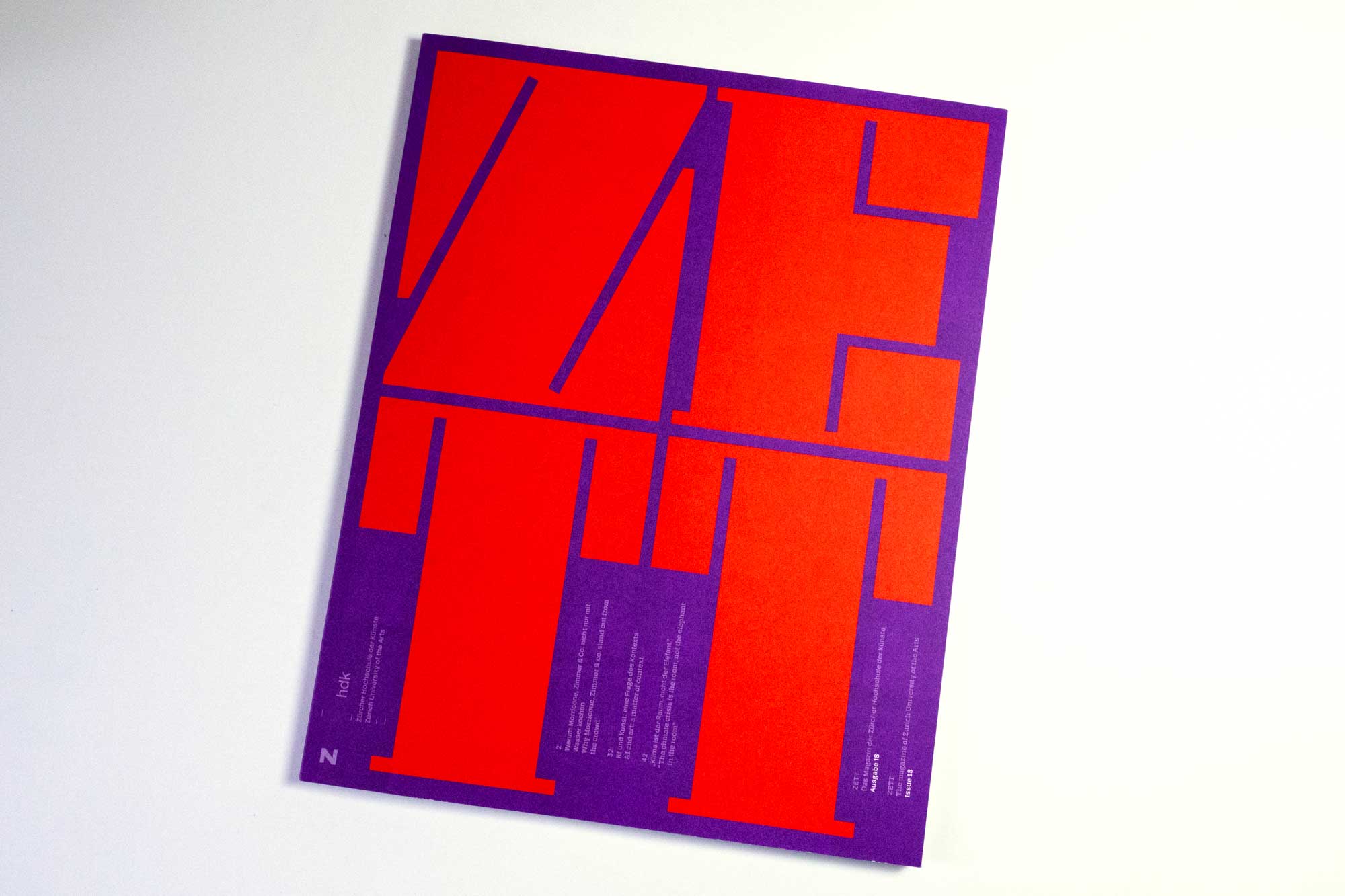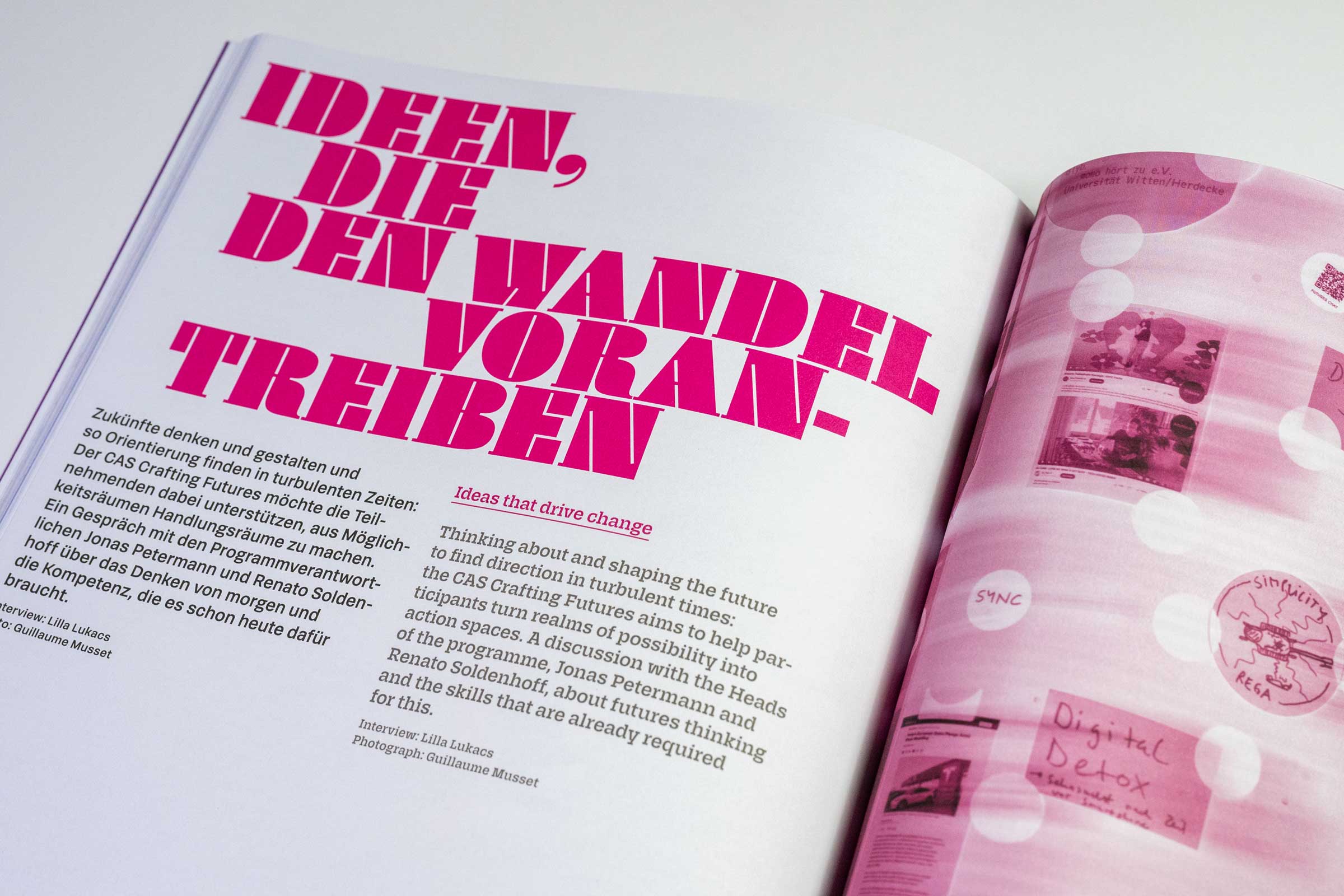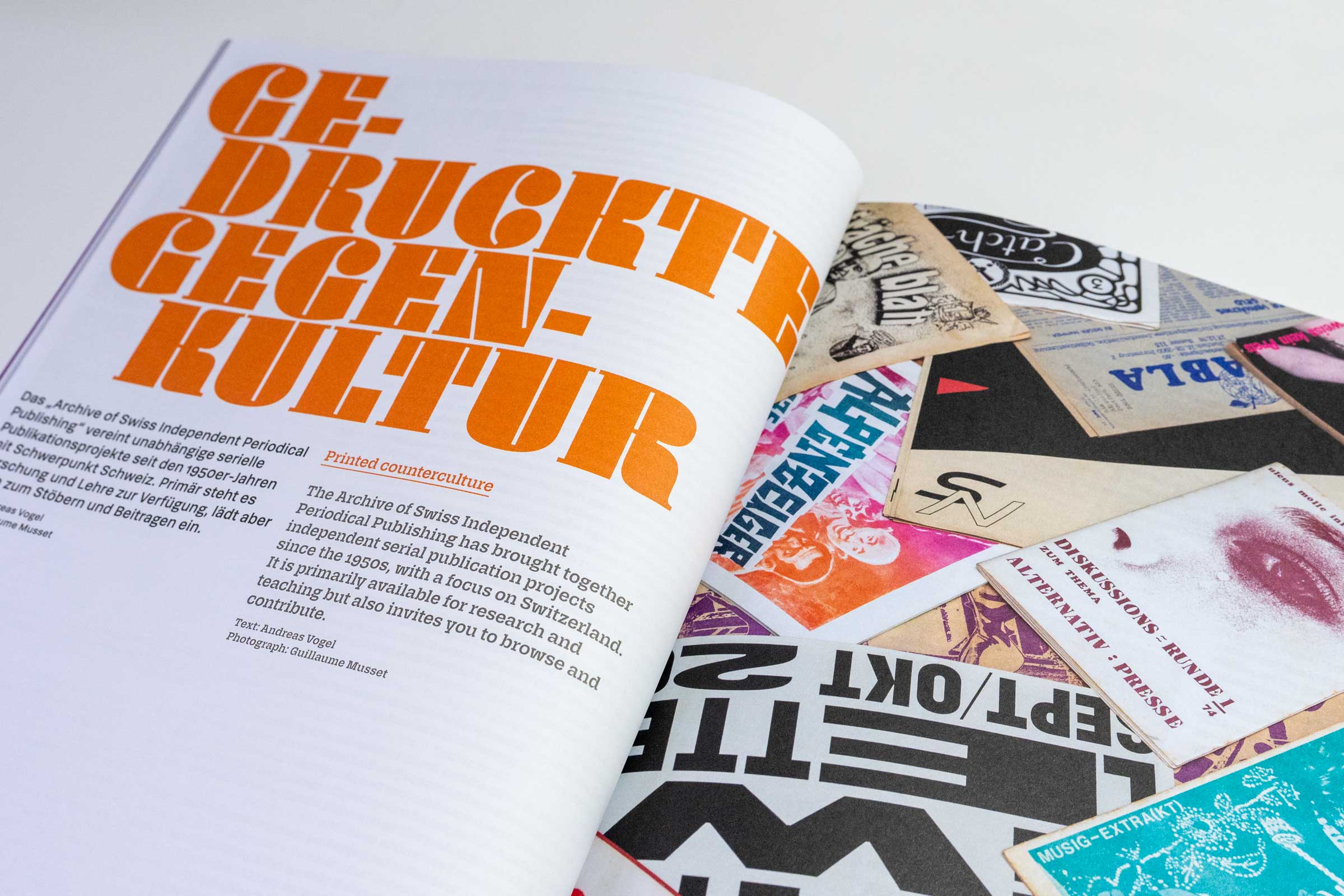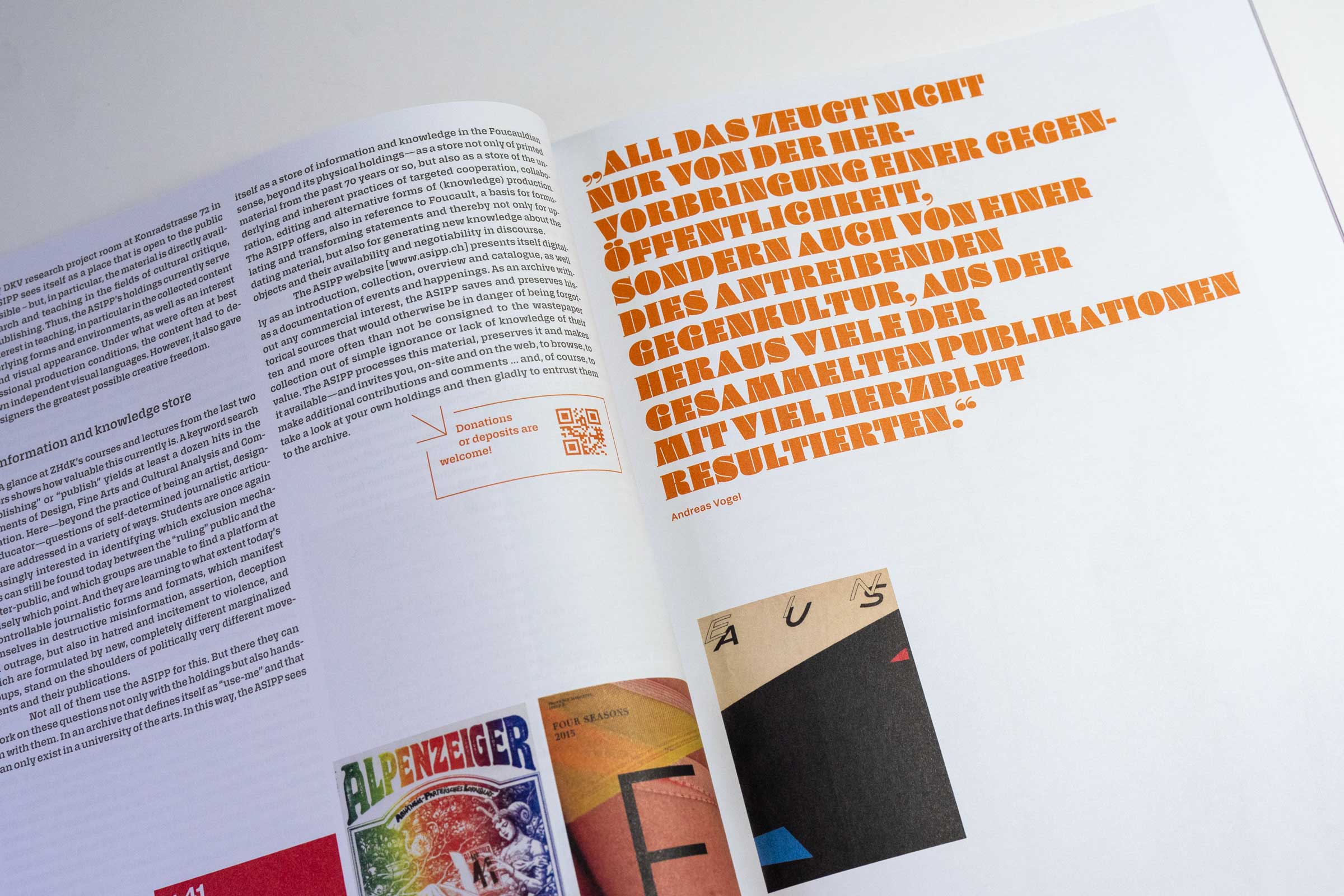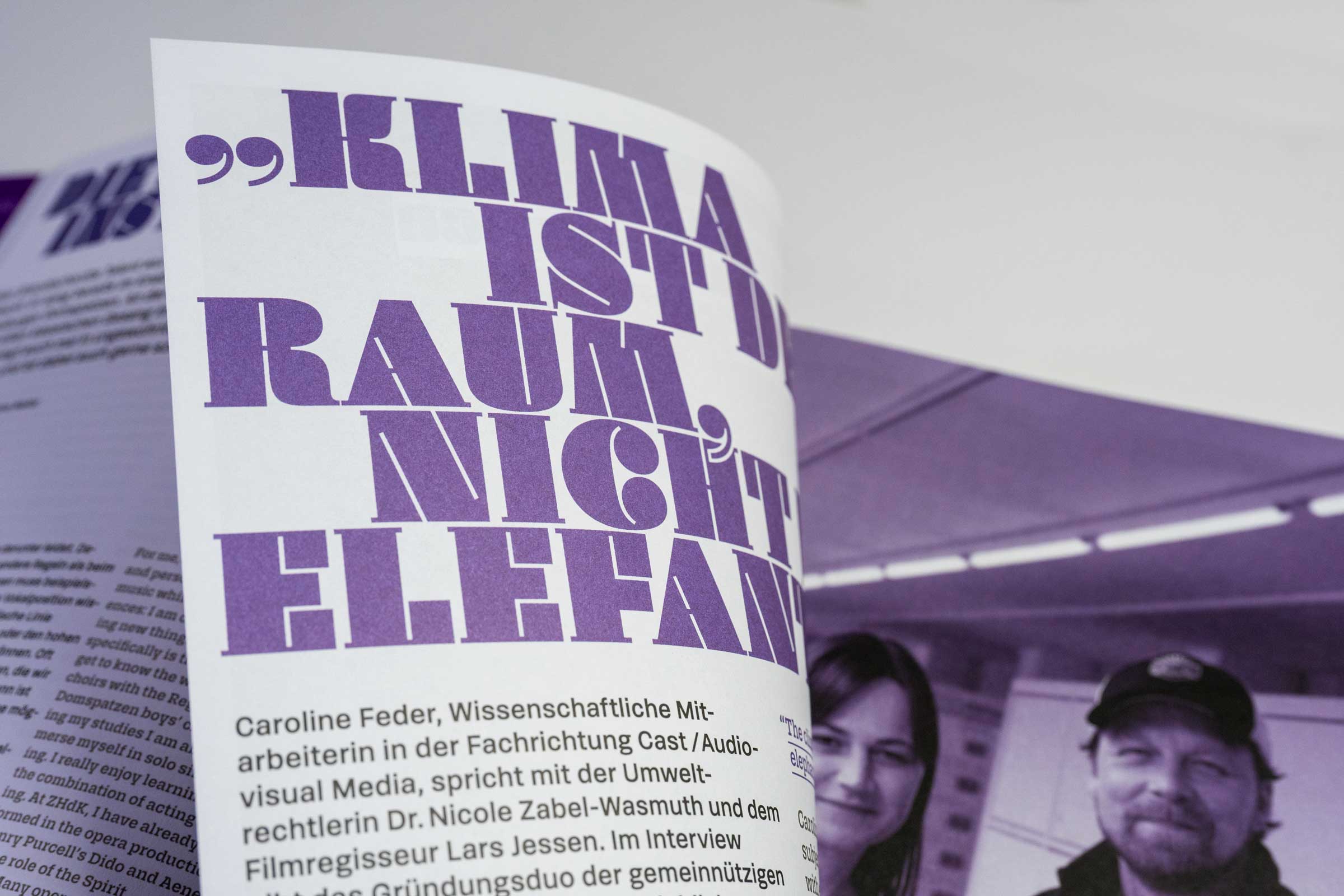
Daisy started with the lowercase c. I liked the idea, that the counter consisted only of a thin line, which basically defines the drop shaped terminal. Most extreme heavy typefaces are sans serifs without any contrast. But would it also be possible to create an extremely fat typeface based on classic old face letterforms? Since the counter forms are fixed by the thin line, other factors like line thickness and letter width must be more flexible in order to create a harmonious alphabet. Ligatures and alternate letters expand the typographic possibilities. The Daisy family consists of an upright font and a swinging cursive font with some alternate characters. If you can decrypt german please read more on Design made in Germany.